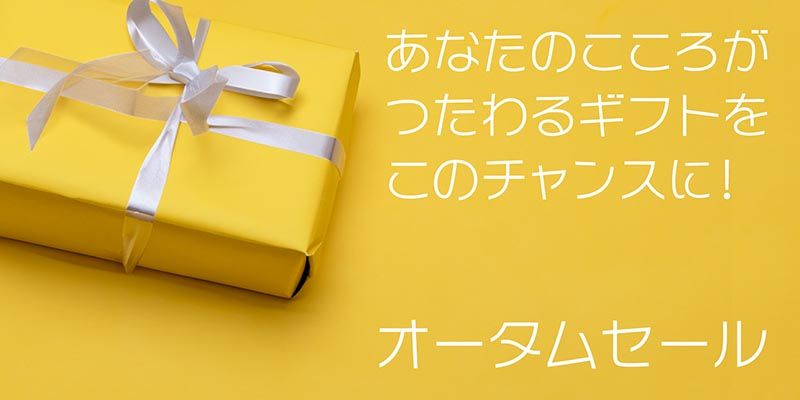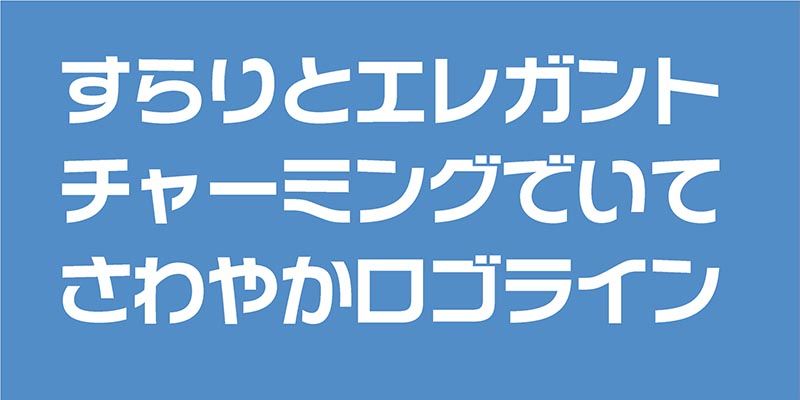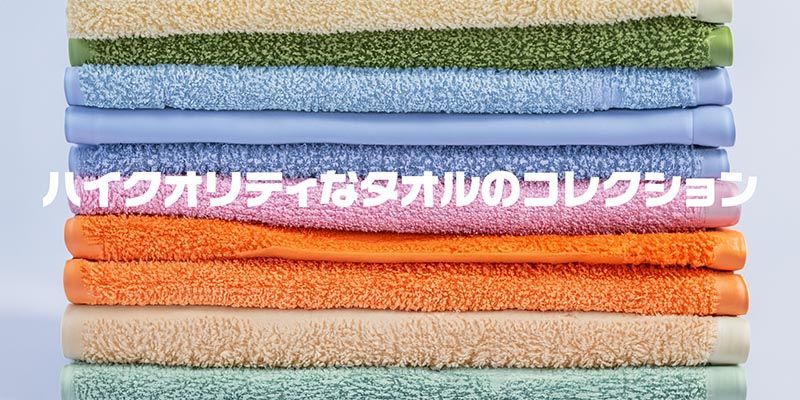
Adobe released the Kamono Kana series, composed of the three kana-only subset typeface families: Logo Line, Logo Arl and Logo Cut in the early 1990s. Now, the Kamono Kana typeface families can be used on Adobe Fonts.
The Logo Line typeface family, in particular, was used widely as glass-grid fonts for manual phototypesetting machines in the 1980s. Fundamental characteristics of the Logo Line design are shared with the other typeface families in the Kamono Kana series. Logo Line is characterized by the fluent horizontal line alignment and consistency, and the typeface is especially effective for display purposes. Each character is designed to be relatively large, with the curved elements of a stroke smoothly connected to the linear elements, which gives a brightness and gentleness. Four weight variations are available, and the typeface can be used for display purposes as well as a wider range of purposes.
“Even if the times change, good things will continue to be used.”
Kamono Design Laboratory formed by the typeface designer, Minoru Kamono in 1978 has created a number of excellent Japanese typefaces. Minoru Kamono pursued the ideal of designing typefaces to be loved by everyone. We hope you will find his gently expressive typefaces useful.